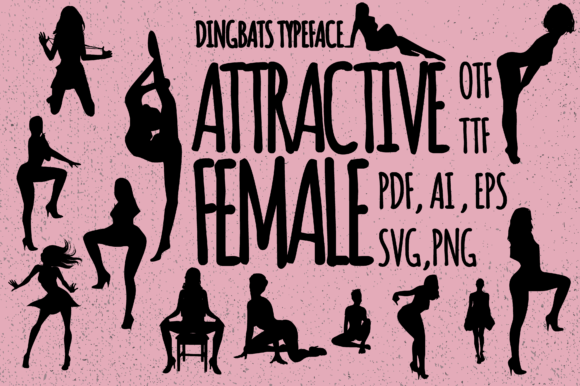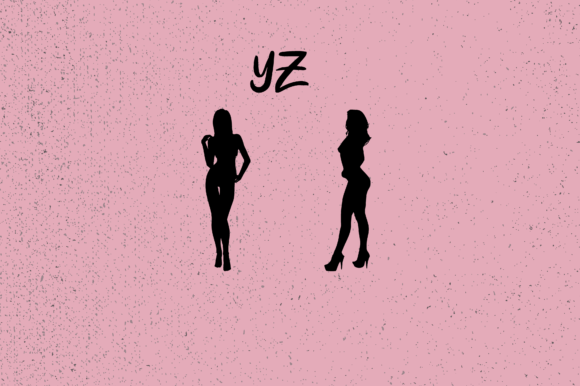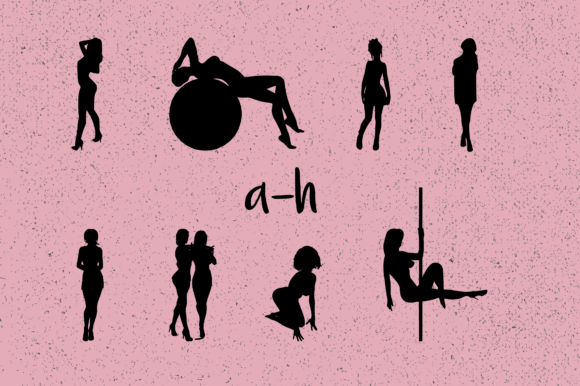
About Attractive Female Poses Font
Attractive Female Poses is a unique and versatile dingbats typeface designed to help you generate a variety of attractive female figures for your projects. Whether you’re working on fashion design, advertising, digital art, or any other project that requires female-related visuals, this font will be a valuable asset in your creative toolkit.
With Attractive Female Poses, you can easily access a collection of captivating and stylish female figures by simply typing capital and small letters as well as numbers. Each character represents a different pose, allowing you to mix and match to create the perfect composition for your design. From confident and poised stances to graceful and dynamic poses, this font offers a range of options to suit your specific needs.
This dingbats typeface is particularly useful in projects that cater to a female audience or focus on feminine themes. Whether you’re designing beauty and cosmetics advertisements, fashion catalogs, lifestyle blogs, or empowering artwork, Attractive Female Poses provides a selection of figures that exude grace, confidence, and beauty.
One of the advantages of using Attractive Female Poses is the ease and flexibility it offers. Instead of having to sketch or search for reference images, you can quickly generate attractive female figures directly from the font. This saves you time and allows for more efficient and precise design iterations.
You can incorporate the generated figures into various types of projects. For instance, in fashion design, you can use Attractive Female Poses to showcase different clothing styles and cuts on realistic body shapes. In advertising, these figures can be used to promote women’s products and services, capturing attention and resonating with the target audience. In digital art, you can create illustrations or graphics featuring diverse female characters, each with their own unique personality and style.
When using Attractive Female Poses, remember to experiment and combine different poses to create engaging and visually compelling compositions. Adjust the size, rotation, and positioning of the figures to achieve the desired effect. Additionally, you can customize the color and add details to match the overall style and theme of your project.
In conclusion, Attractive Female Poses is a valuable dingbats typeface that provides you with a range of attractive female figures for your projects. Its versatility and ease of use make it a great resource for fashion design, advertising, digital art, and other female-related projects. Let Attractive Female Poses add a touch of elegance and allure to your designs and bring your vision to life.